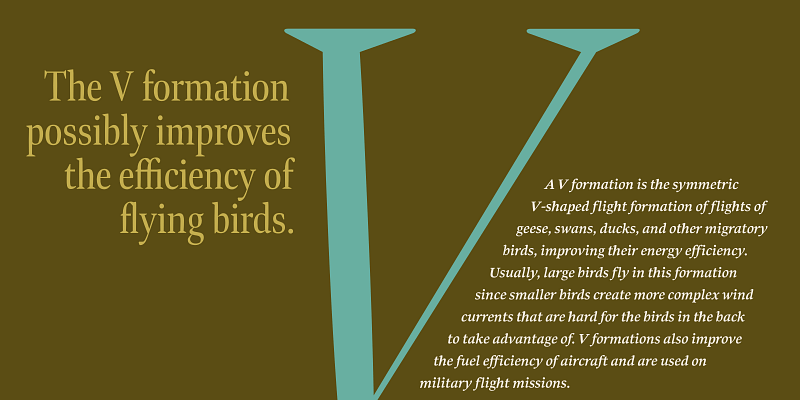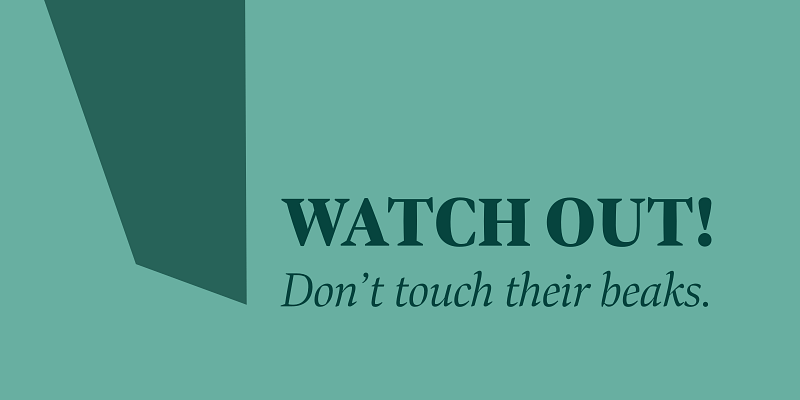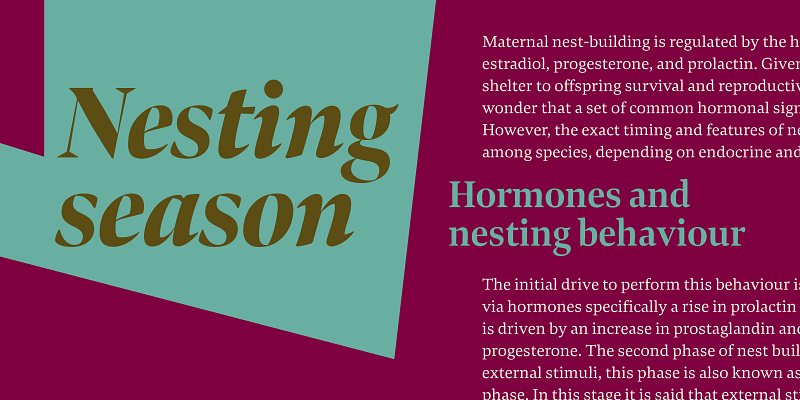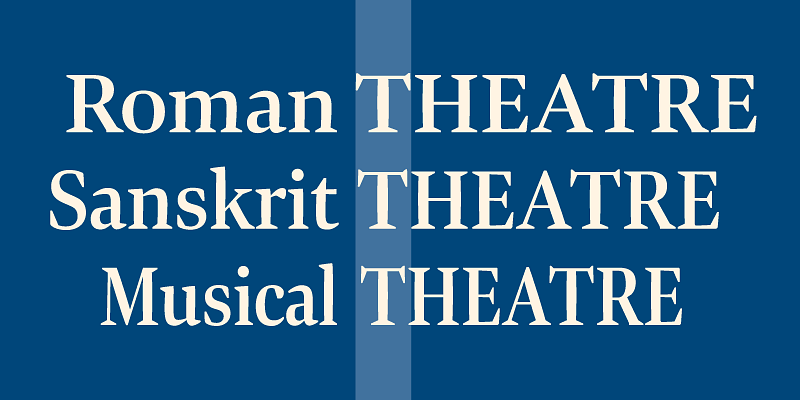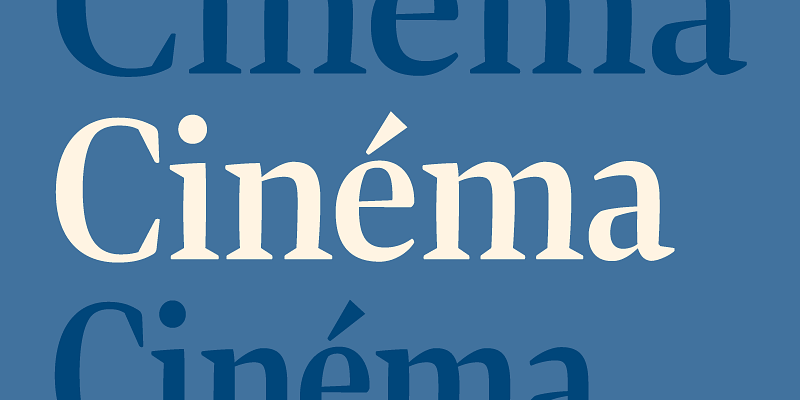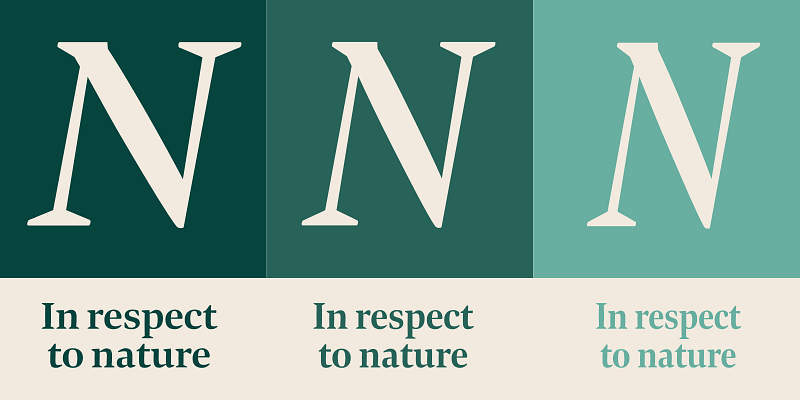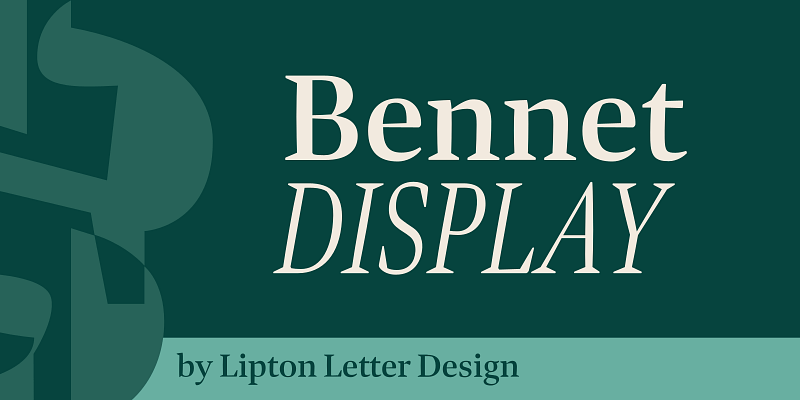
Bennet Display, part of Richard Lipton’s spirited wedge serif superfamily, was inspired by Moth Design’s logotype and stationery system for the North Bennet Street School in Boston. Initially modest in concept, Bennet grew to an expansive suite of 96 fonts tuned for editorial use. The three widths of Bennet’s Display and Banner sizes — Regular, Condensed, and Extra Condensed — are ideal for precisely fitting newspaper and magazine headlines.